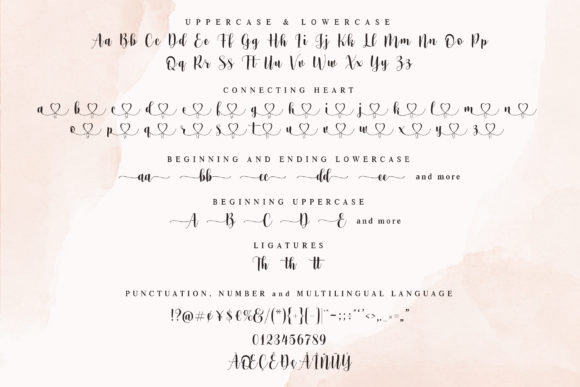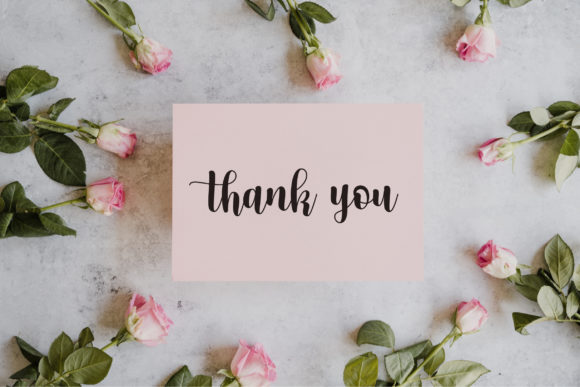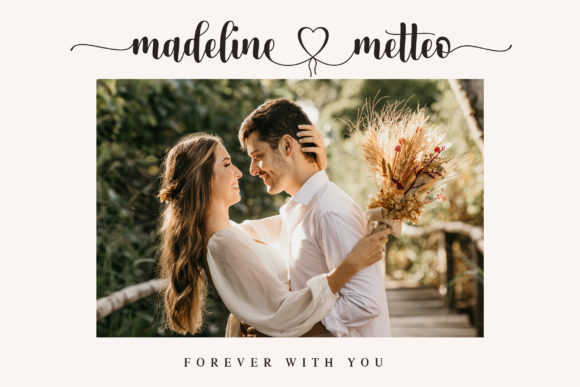
About Romantic Together Font
Romantic Together is a beautiful and chic script font. It is suitable for wedding invitations, branding, any romantic projects and will elevate a wide range of creative ideas. This font is PUA encoded which means you can access all of the glyphs and swashes with ease!Â